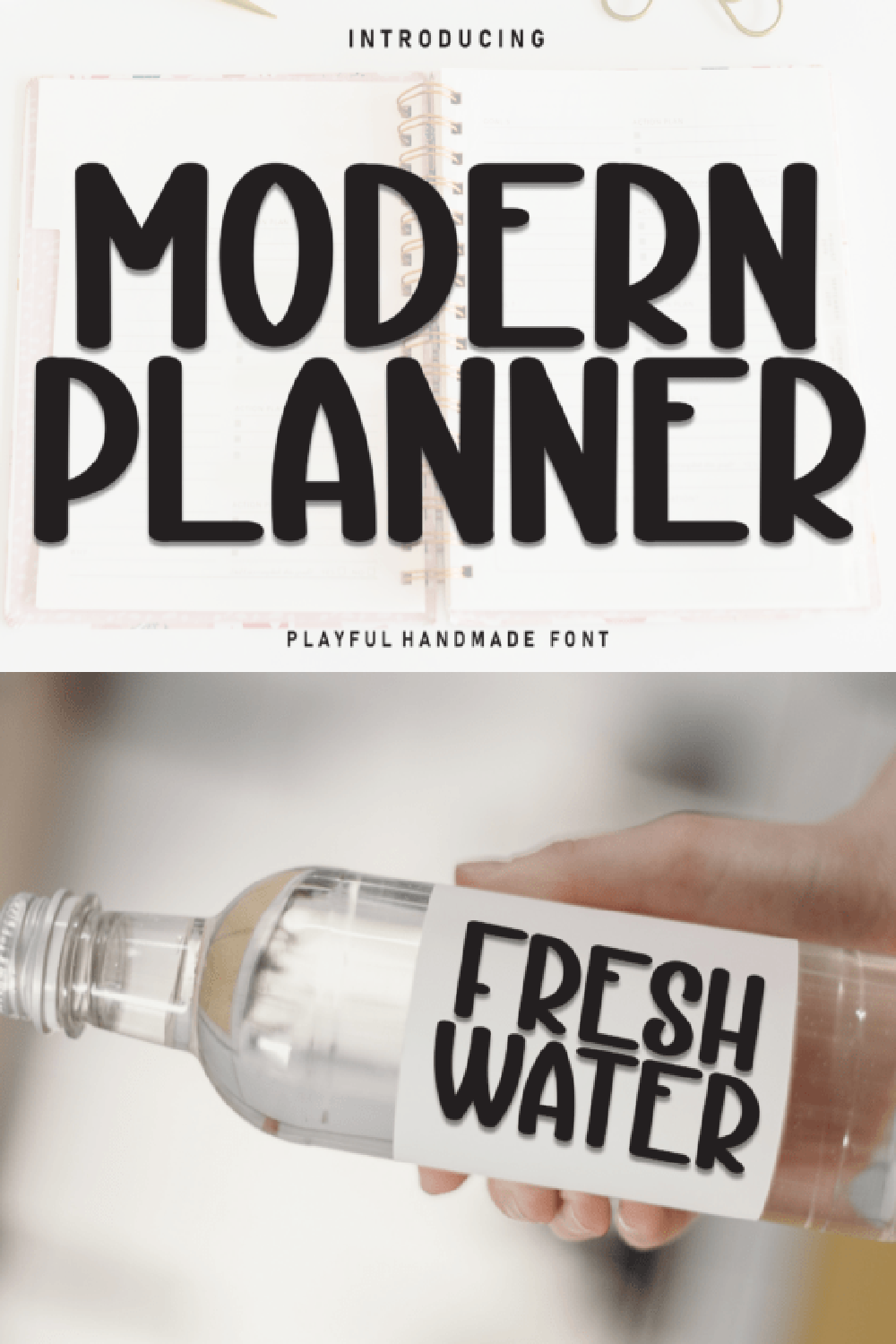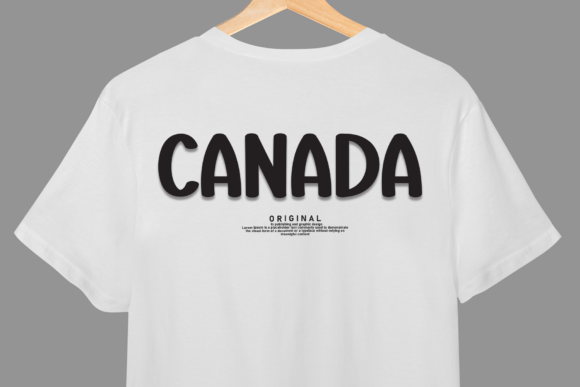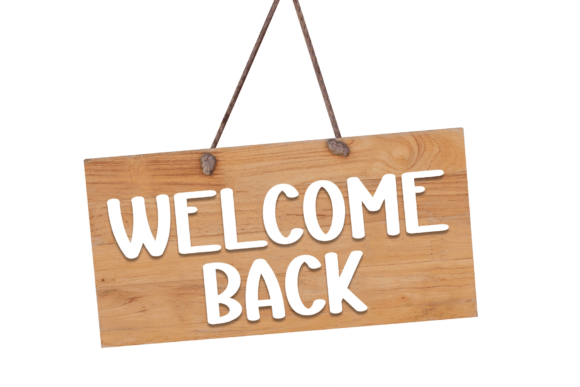
Modern Planner Font: A Cute & Playful Handwritten Display Font
About the Modern Planner Font
Meet Modern Planner Font, a stunning font that brings a touch of elegance and professionalism to any design. Experience the charm of our delightful handwritten display font, soaked in sweetness and brimming with friendliness. Lively and enthralling, this font adds a touch of joy to any design, making it a wonderful choice for crafting wedding invitations or cards. Whether you seek to create intimate moments or foster cherished memories, this font is sure to infuse fun and cheer into your designs. Enjoy the artistic allure and playful personality of this charming font, perfect for designs that crave a dash of delight!